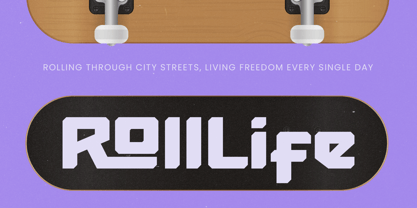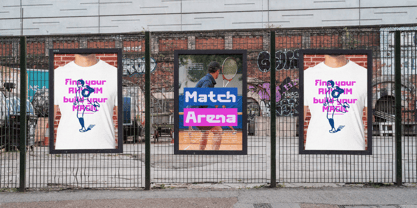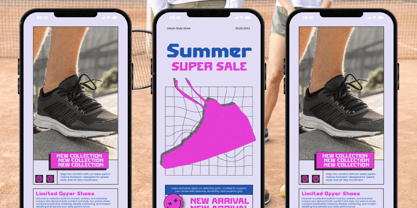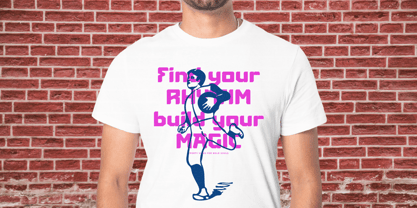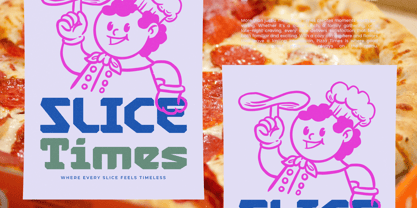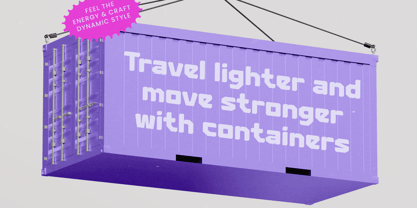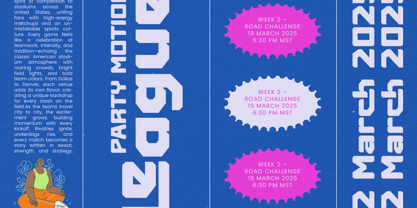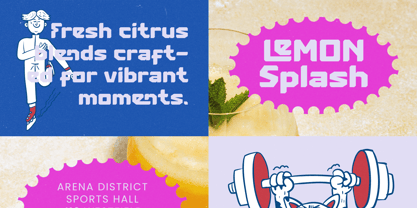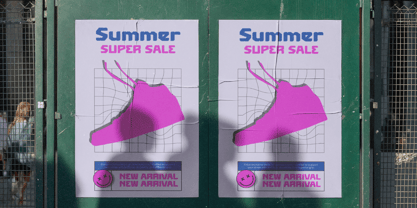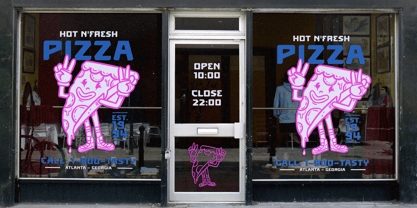
Sporty Youth
The Sporty Youth Font Family was designed by Heru Utama Putra and published by Timelesstype Studio. Sporty Youth contains 2 styles and family package options. More about this family
Sporty Youth is a modern retro sport font built with sharp geometric forms and a bold, energetic personality, designed to capture dynamic movement and youthful competitive spirit. Featuring 26 sporty ligatures and 65 stylistic alternates, this typeface gives designers powerful flexibility for creating standout headlines, team identities, sports branding, posters, esports graphics, workout apparel, and bold retro-style layouts. With a total of 423 glyphs and multilingual support, Sporty Youth delivers a crafted balance of vintage sports aesthetics and modern digital sharpness, making it perfect for projects that need strength, speed, and expressive typographic style that instantly grabs attention.